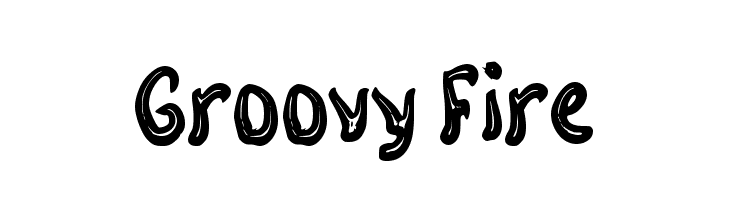
( Fonts by Bangkit Tri Setiadi )
A bold, playful font with a retro, extruded style and tight character spacing.
( Fonts by Bangkit Tri Setiadi )
A bold, retro-inspired font with a playful, bubbly design.
A playful, bold font with irregular, hand-drawn shapes and thick strokes.
A bold, bubbly, and playful font with a whimsical and lively appearance.
( Fonts by Jimtype Studio )
A playful, bold font with rounded, bubbly characters and a retro-modern style.
( Fonts by Excellent Ritma Florendia )
A bold, playful font with thick, rounded characters and a retro vibe.
( Fonts by Zdenek Gromnica - www.futuremillennium.com )
A bold, geometric font with a modern and futuristic style.
A bold, playful, hand-drawn font with thick, uneven strokes and a whimsical style.
( truefonts.blogspot.com )
A bold, vintage-style font with a three-dimensional shadow effect.
A playful, retro font with bold, rounded characters and a fluid, dynamic style.